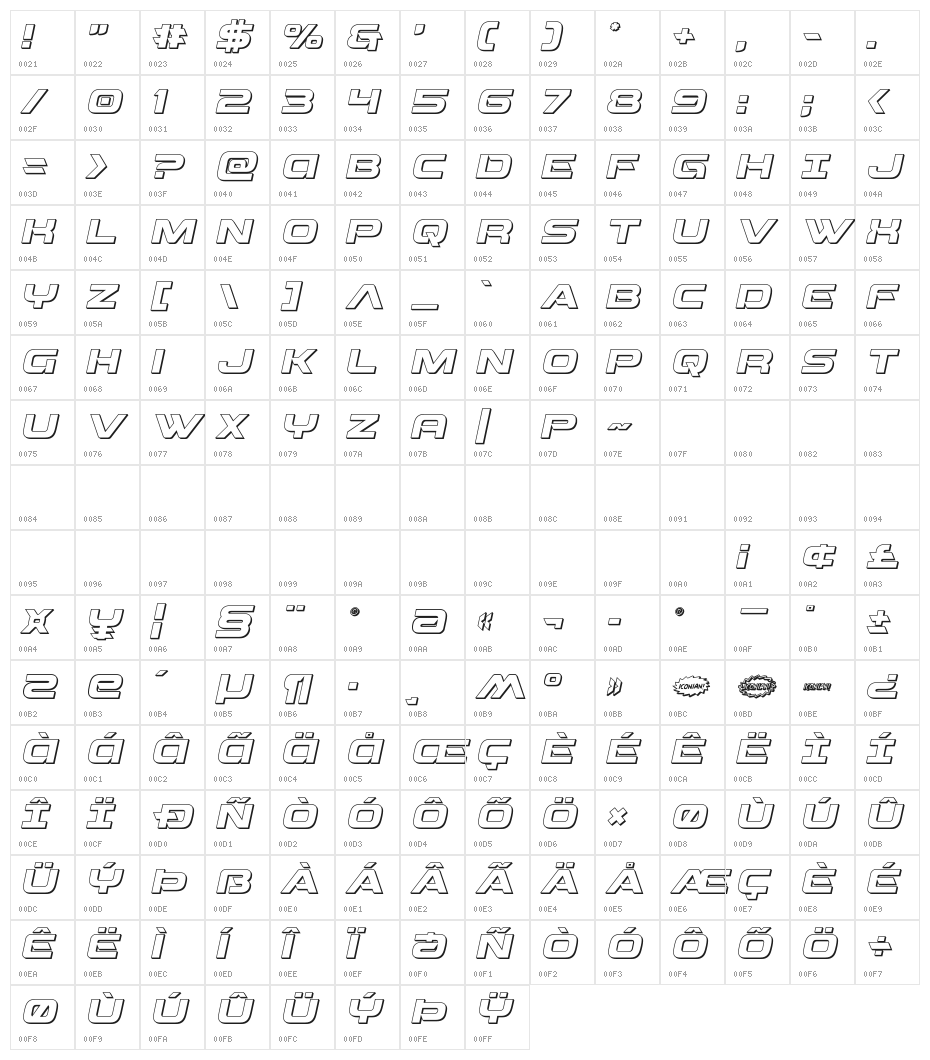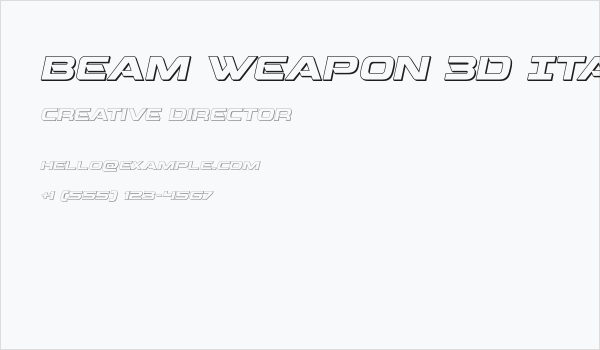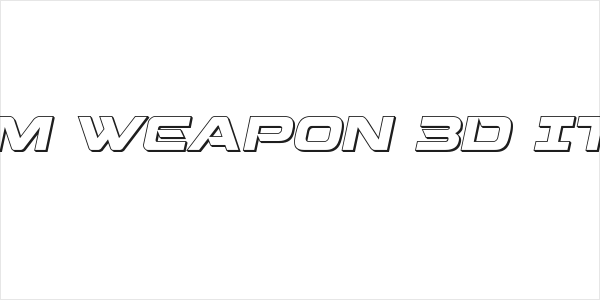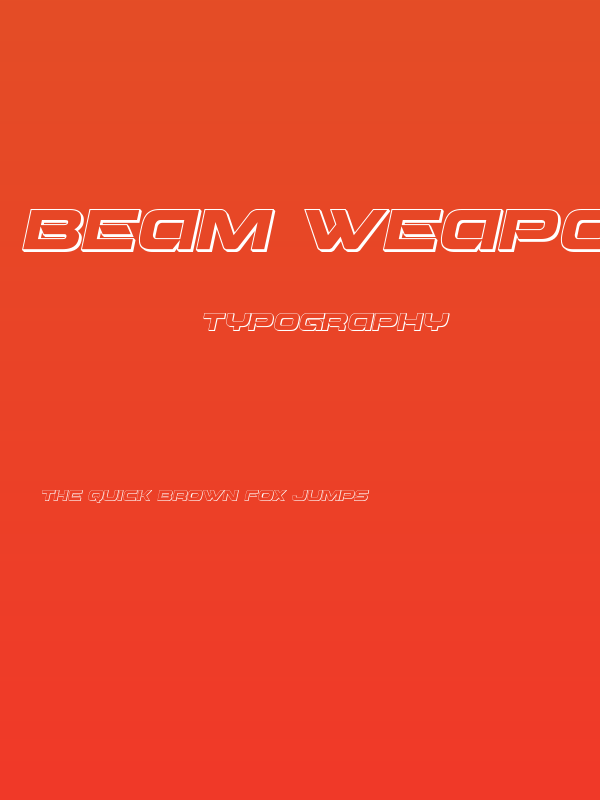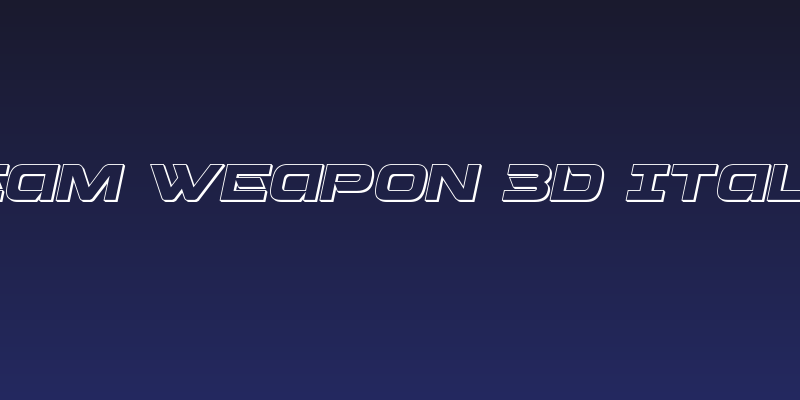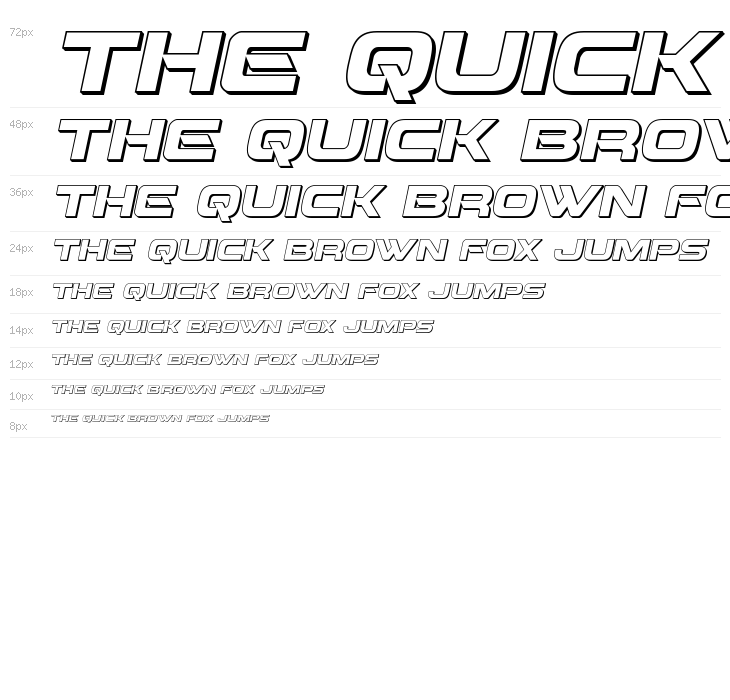
Beam Weapon 3D Italic Font
Beam Weapon 3D Italic Description
This font features a futuristic, 3D italic style with a bold, geometric design. The characters are outlined, giving them a hollow appearance that enhances the three-dimensional effect. The uppercase and lowercase letters maintain a consistent style, with sharp angles and clean lines that convey a sense of modernity and technological advancement. The numbers and special characters follow the same design principles, ensuring uniformity across all glyphs. This font is ideal for projects that require a cutting-edge, sci-fi aesthetic.
| Proposed Projects | Ideal for sci-fi themed projects, video game titles, tech branding, and futuristic posters. |